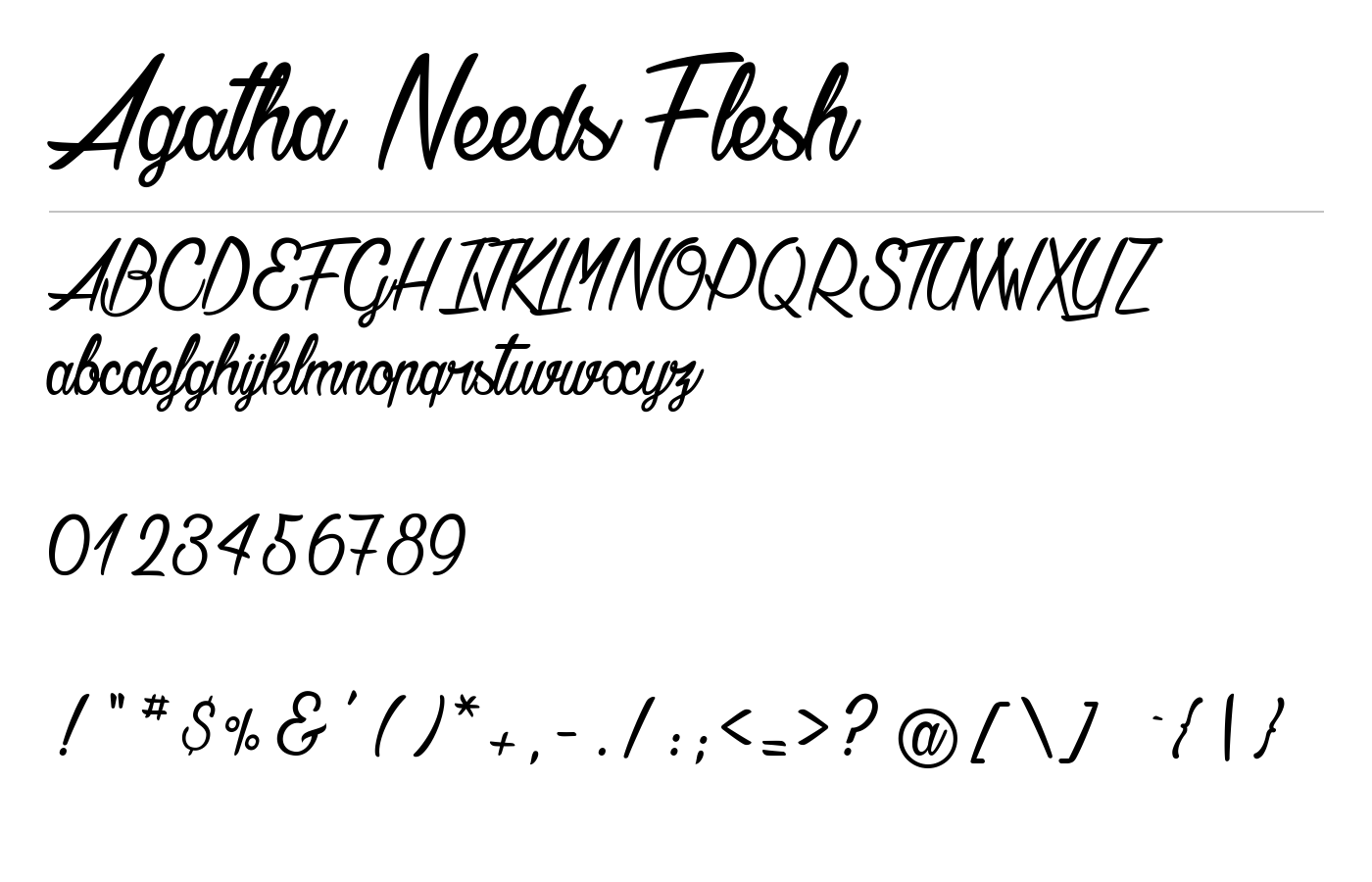
Agatha Needs Flesh is a lively and elegant script font with a handwritten feel, featuring smooth, flowing strokes and a slightly condensed structure. Its medium weight and upright, gently slanted letterforms create a stylish yet approachable personality, making it ideal for branding, invitations, and creative headlines where a fresh, personal touch is desired. This font shines in projects that aim for a modern but friendly and artistic vibe.
Agatha Needs Flesh Font
About Agatha Needs Flesh Font